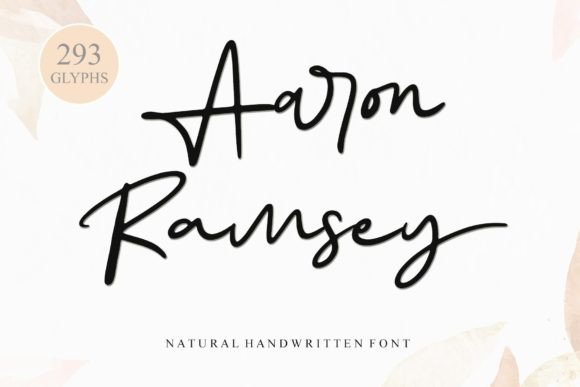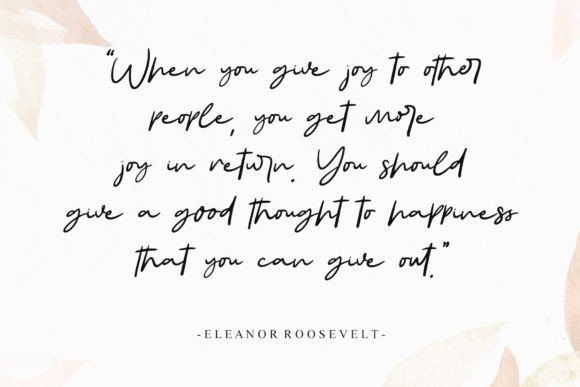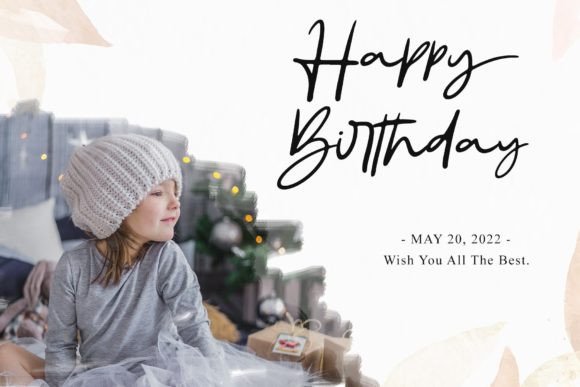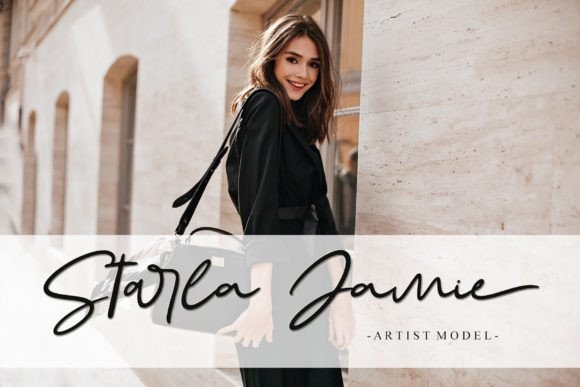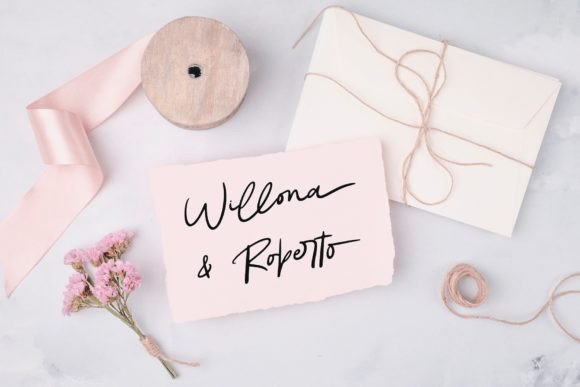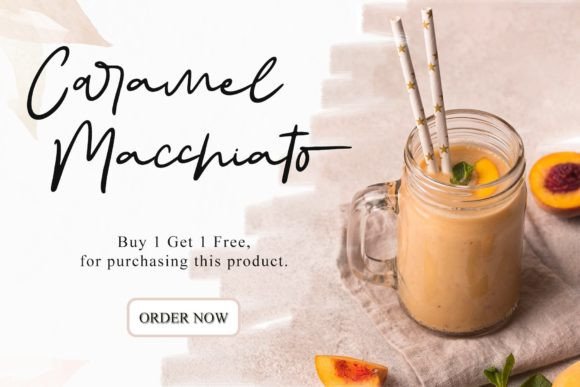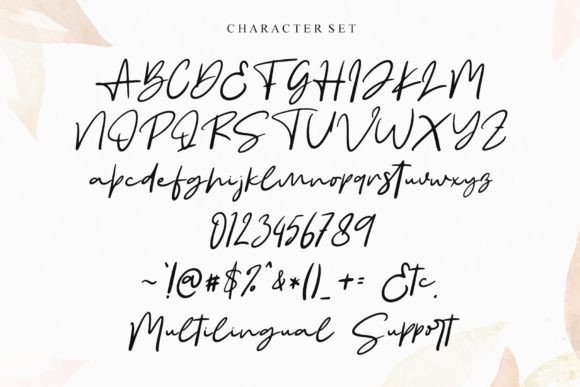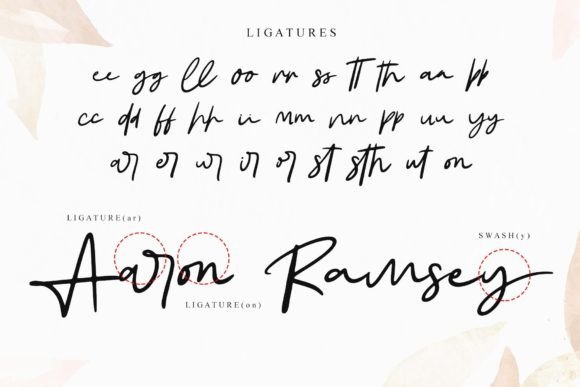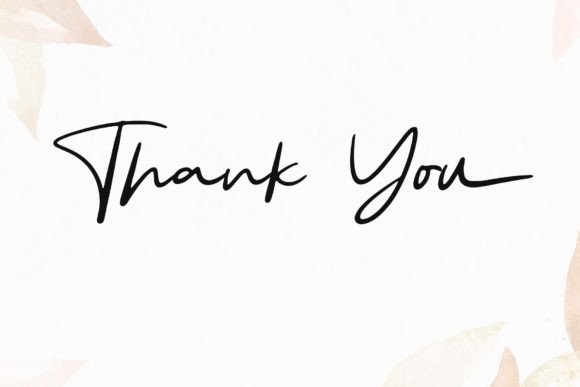
Aaron Ramsey Font
About Aaron Ramsey Font
Aaron Ramsey, a simple and quirky-looking handwritten font, brings a unique blend of class, elegance, and modernity to your designs. Its versatile nature makes it an ideal choice for a variety of applications, including logos, branding, invitations, stationery, wedding designs, social media posts, and more. Notably, Aaron Ramsey is PUA encoded, providing easy access to all its glyphs and swashes, enhancing the user experience for designers.
In the realm of logos, Aaron Ramsey’s simple yet quirky appearance adds a touch of personality to your brand identity. The handwritten style contributes to a logo that feels authentic and approachable, making it memorable for your audience. Whether for a startup or an established brand, Aaron Ramsey brings a unique charm to logo designs.
For branding purposes, Aaron Ramsey’s classy and elegant look ensures a sophisticated and contemporary brand image. The font’s versatility allows it to adapt to various industries and design themes, providing a consistent and stylish branding solution. Whether applied to packaging, promotional materials, or digital platforms, Aaron Ramsey adds a touch of modern flair to your brand.
Invitations and stationery benefit from Aaron Ramsey’s charming and quirky handwriting. The font’s unique style adds character to wedding invitations, party invitations, and other event stationery, creating designs that are both classy and whimsical. The PUA encoding facilitates easy incorporation of swashes, allowing for creative variations.
In the realm of wedding designs, Aaron Ramsey contributes to an elegant and modern aesthetic. Whether used for wedding invitations, save-the-dates, or other wedding stationery, the font’s handwritten charm adds a personal touch to the special occasion. The PUA encoding enables effortless integration of glyphs and swashes, allowing for customization.
Social media posts come alive with Aaron Ramsey’s modern and quirky look. Whether for Instagram, Facebook, or other platforms, the font adds a touch of individuality and creativity to your posts. Its elegant and handwritten style ensures that your social media presence is both stylish and engaging.
The PUA encoding of Aaron Ramsey simplifies the process of accessing glyphs and swashes, providing designers with creative freedom. This feature enhances the versatility of the font, allowing for easy customization in various design contexts. Designers can seamlessly integrate swashes and other elements to enhance the visual appeal of their creations.
In summary, Aaron Ramsey is a versatile handwritten font with a simple and quirky look that encompasses class, elegance, and modernity. Whether applied to logos, branding, invitations, stationery, wedding designs, social media posts, or other creative projects, Aaron Ramsey adds a unique charm to your designs. Embrace the font’s PUA encoding to unlock its full potential and effortlessly create customized and visually appealing creations.